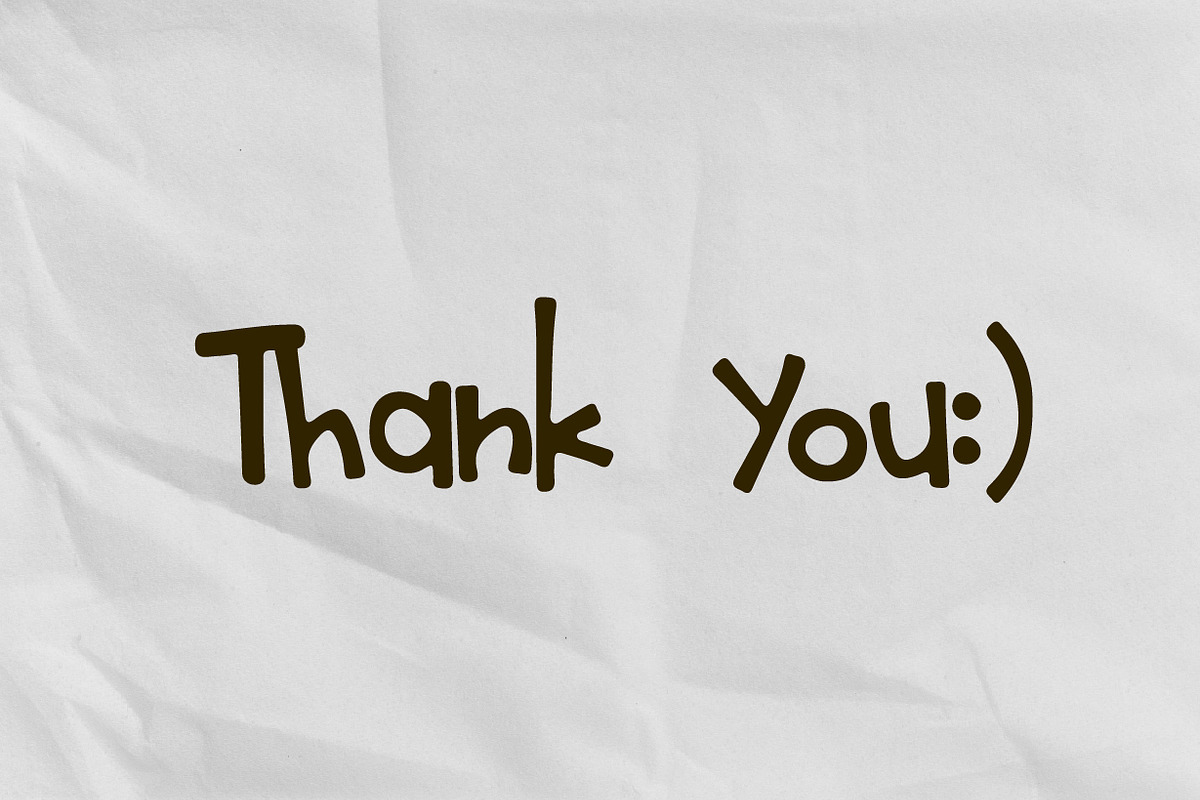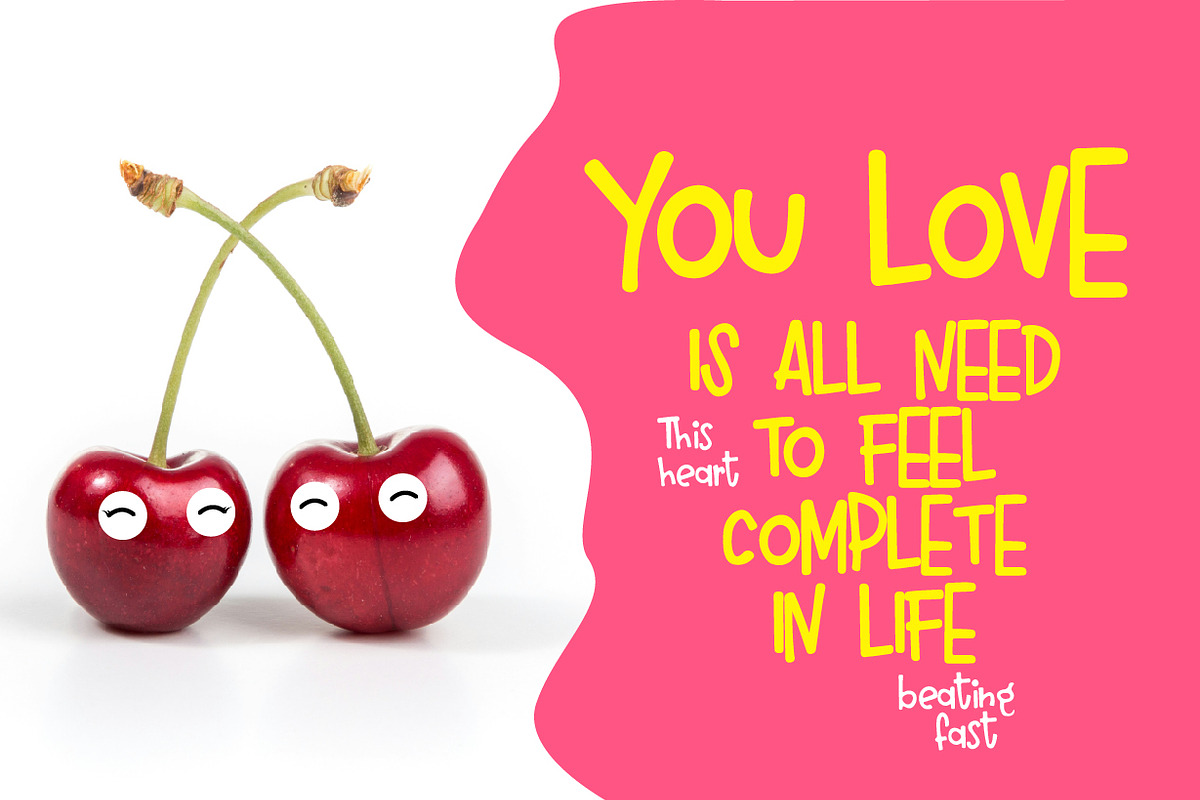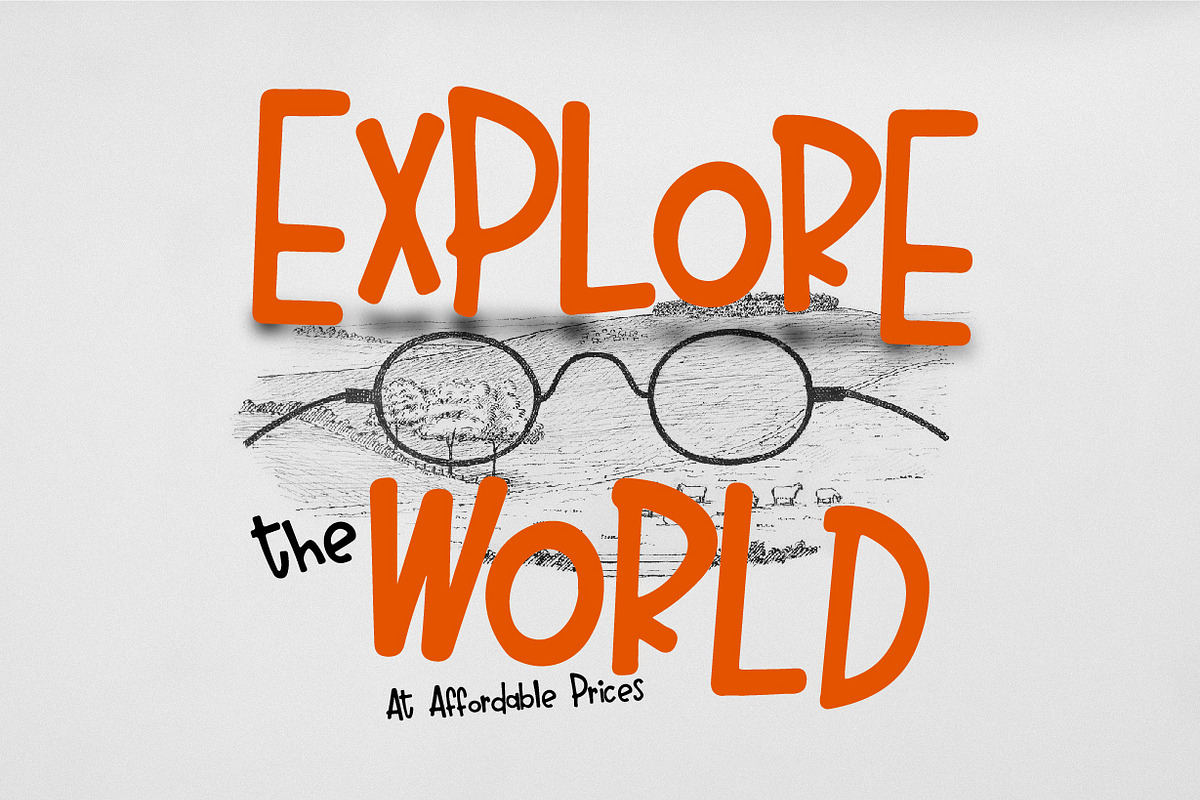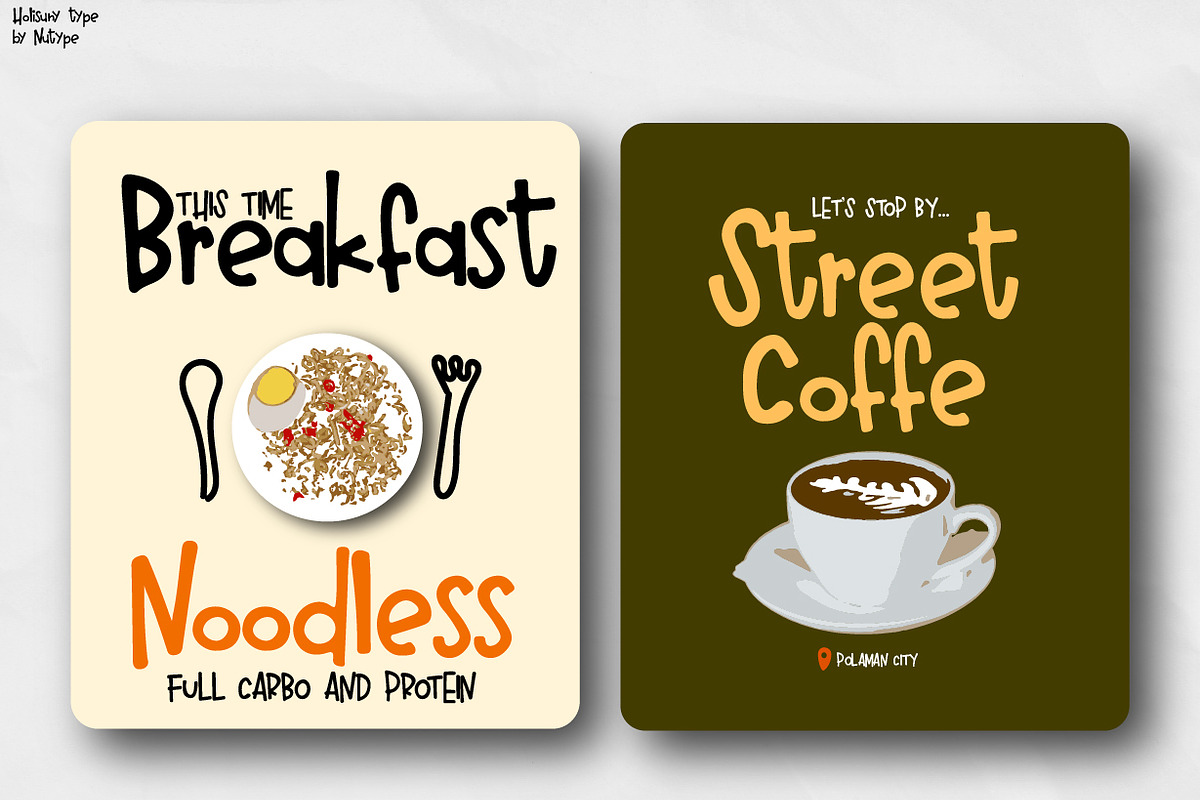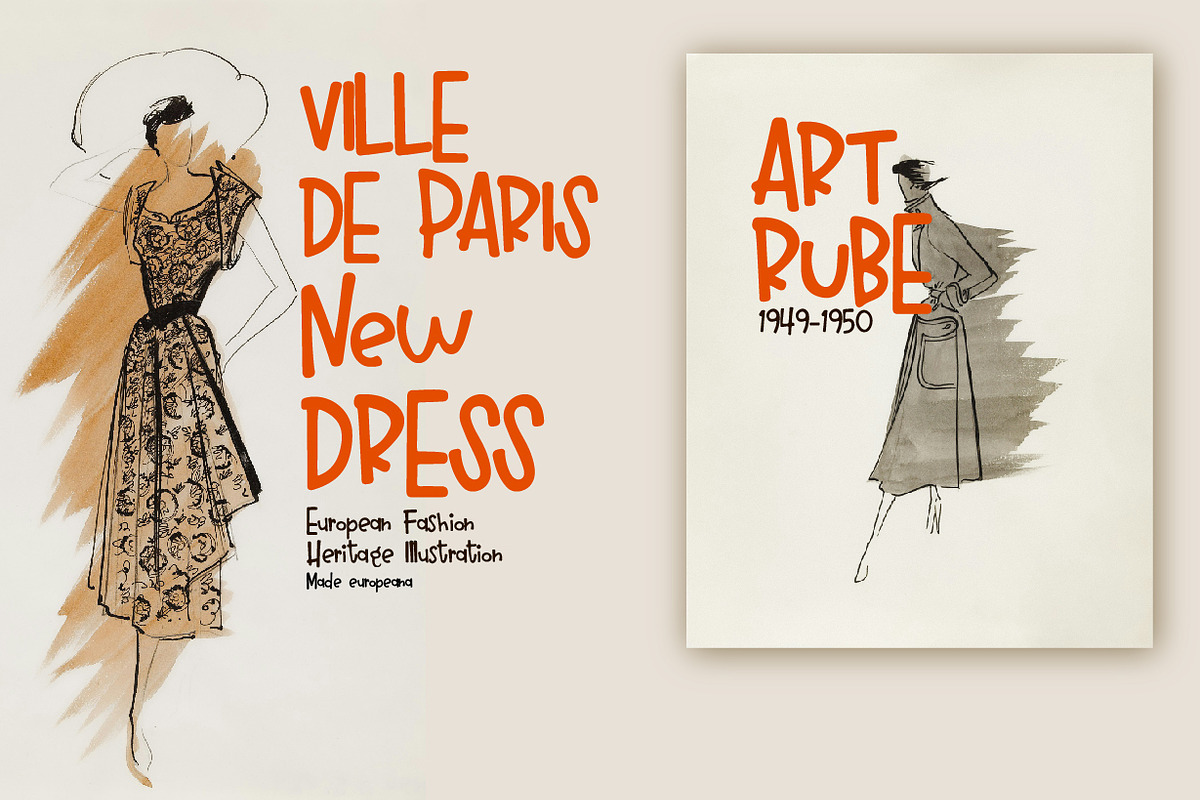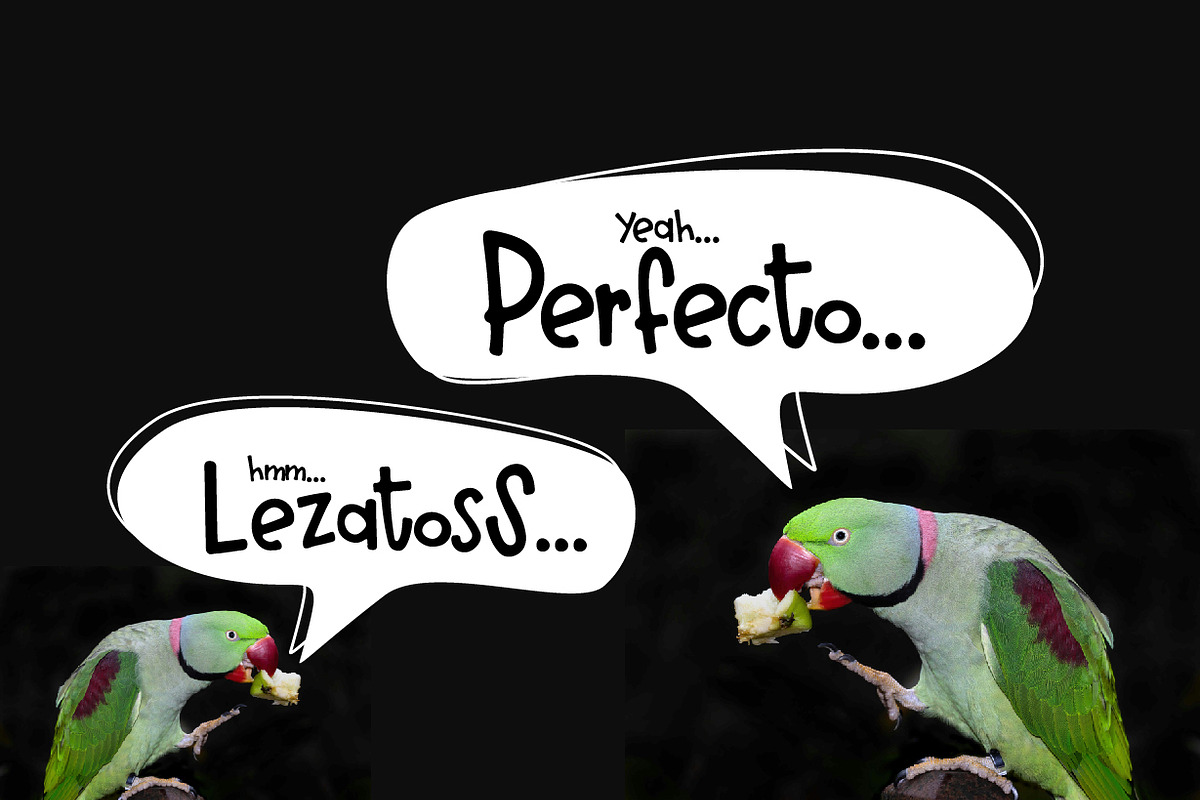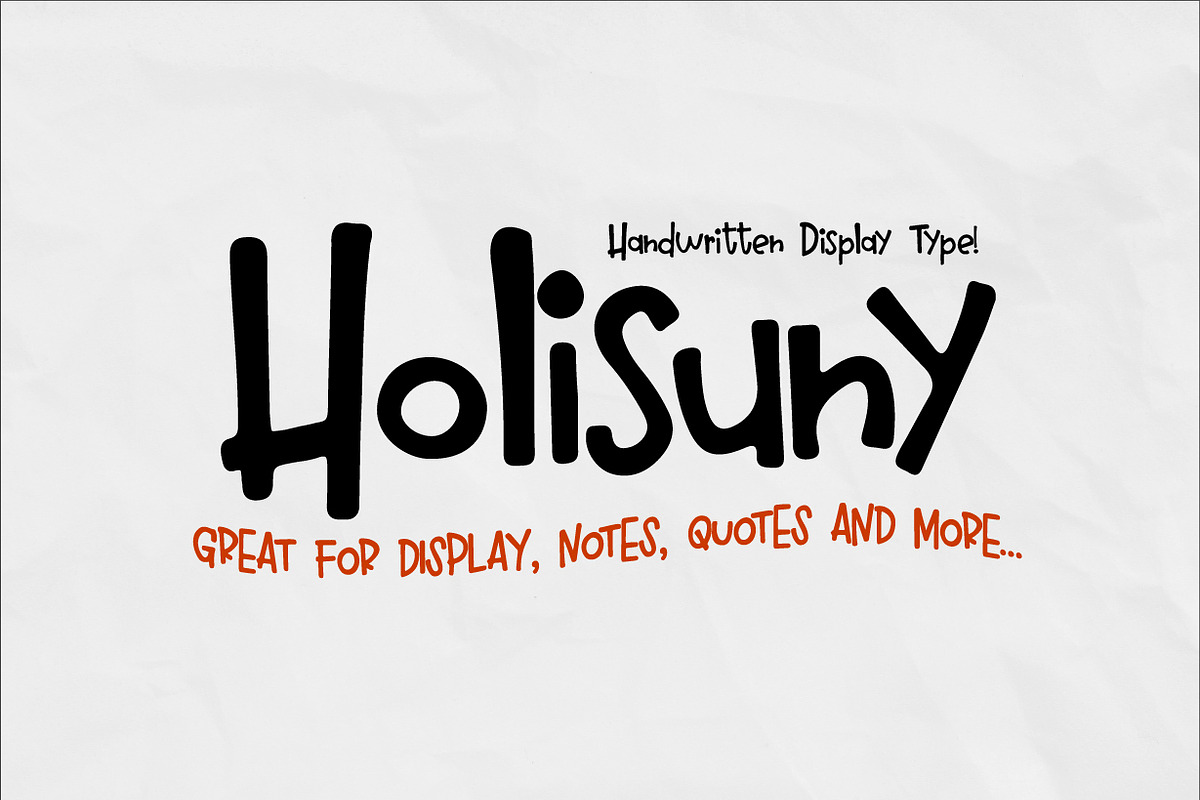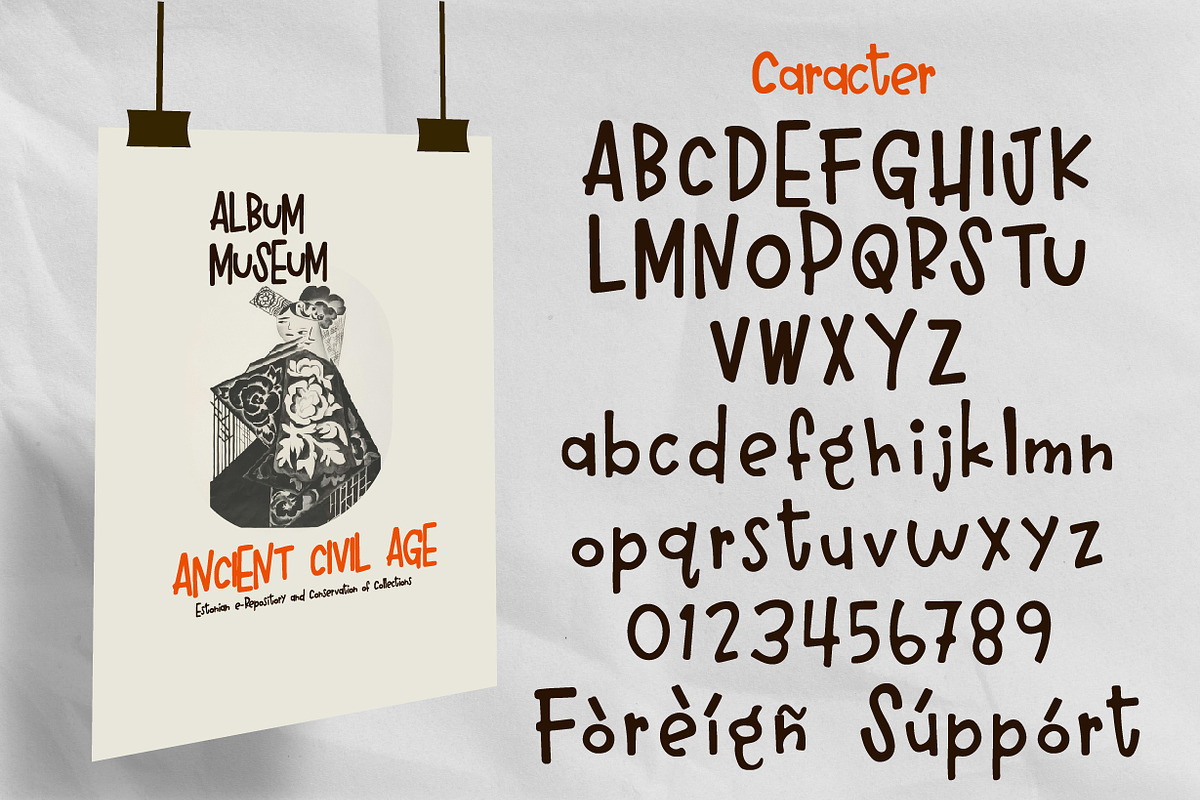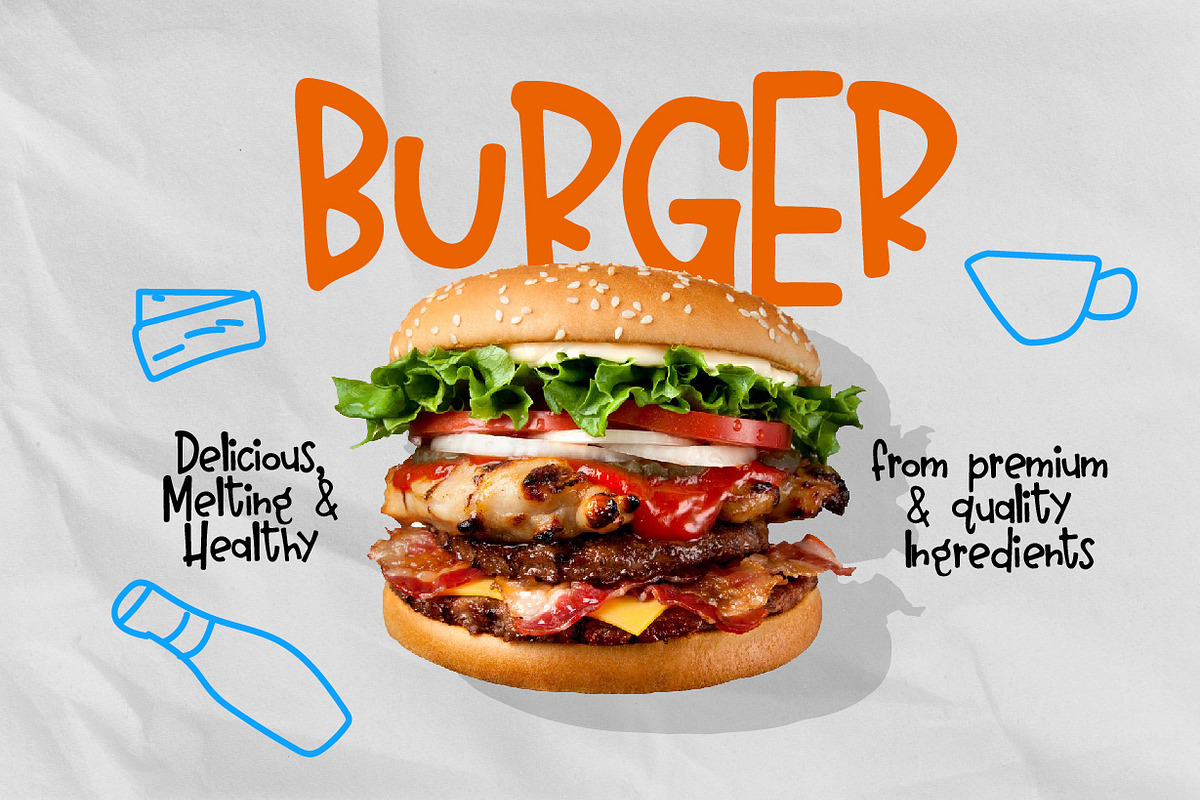
Holisuny - Handwritten Type
Holisuny has natural and natural strokes with typography that looks like handwriting. The strokes appear to be produced by flexible and skilled hand movements, making the font feel artistic and handmade. Medium to large typography sizes will clearly display the stroke details. This font is perfect for designs that require a personal and organic touch.
Holisuny is supported with additional characters that have alternative shapes and strokes that will help you achieve a beautiful style with your own creations.